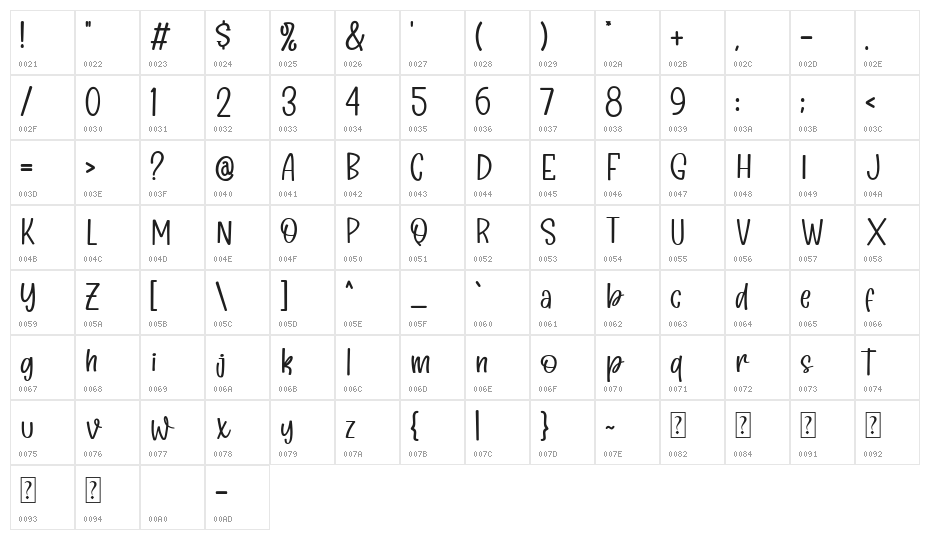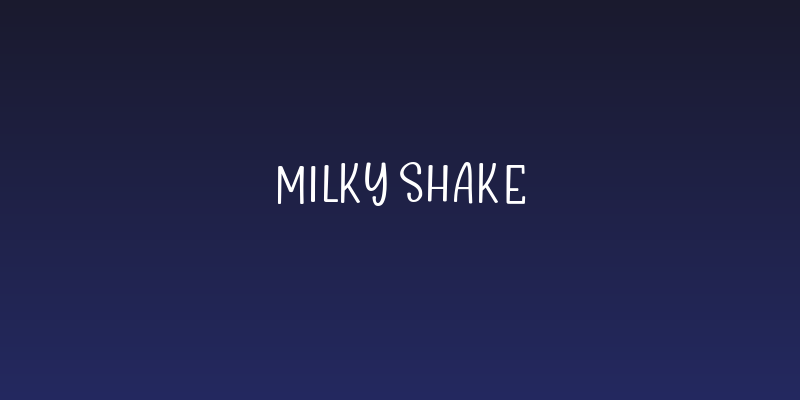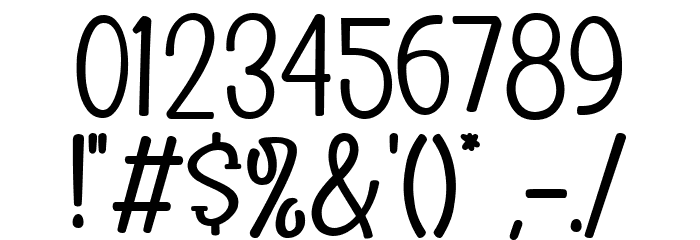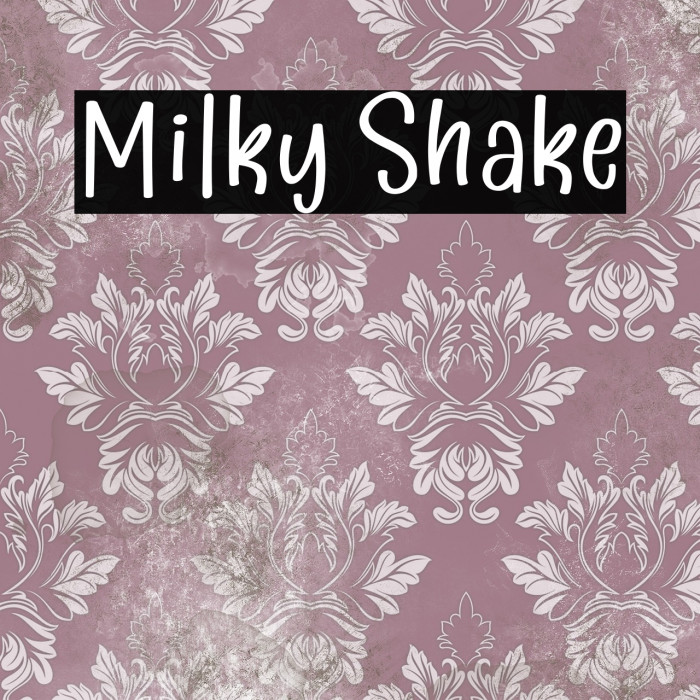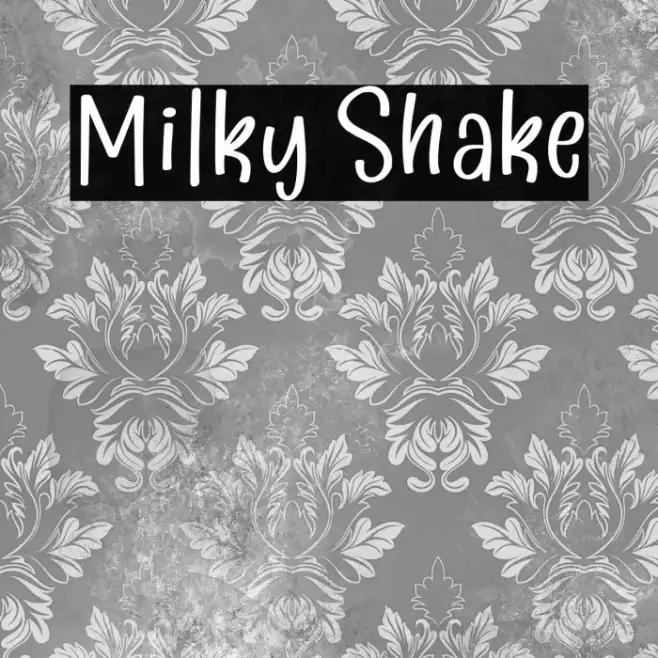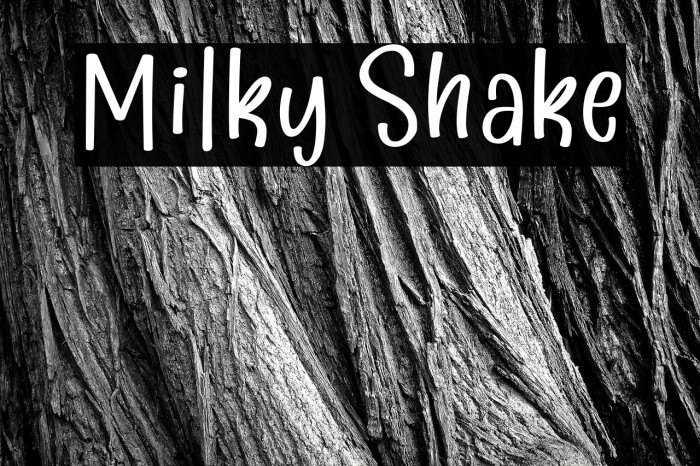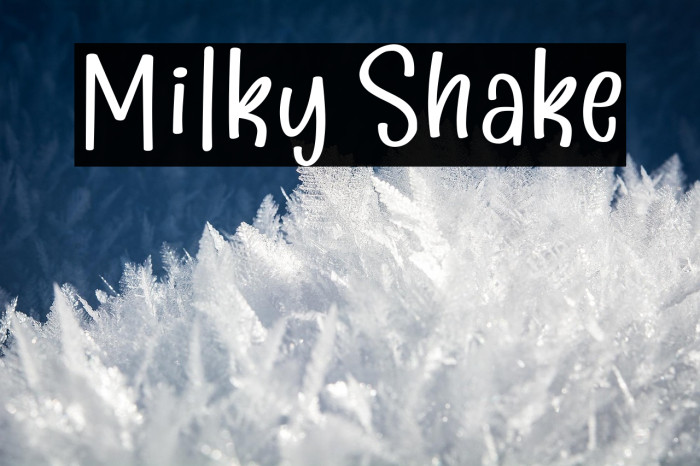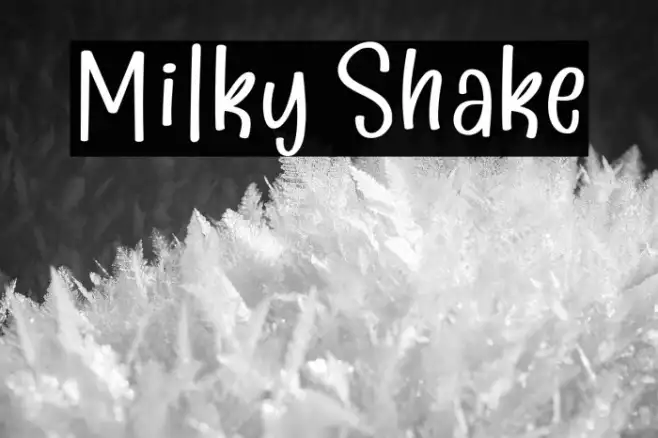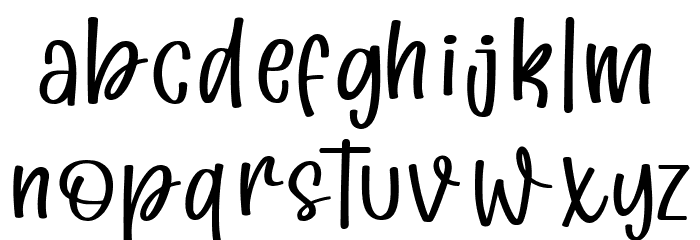
Milky Shake Font
Milky Shake Description
This playful and whimsical font features a handwritten style with a smooth, flowing appearance. The letters are slightly rounded, giving them a friendly and approachable feel. The uppercase characters are bold and prominent, while the lowercase letters maintain a consistent style with a touch of elegance. Numbers are clear and easy to read, matching the overall aesthetic. Special characters are creatively designed, adding to the font's charm. This font is perfect for projects that require a personal touch, such as invitations, greeting cards, or playful branding.
| Proposed Projects | Ideal for invitations, greeting cards, playful branding, and personal projects. |